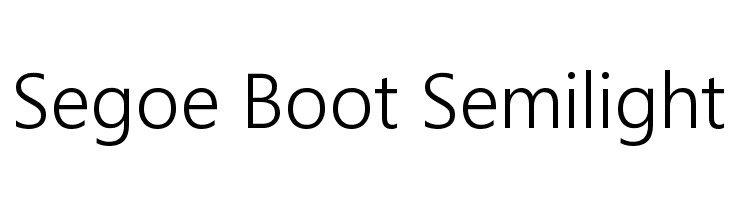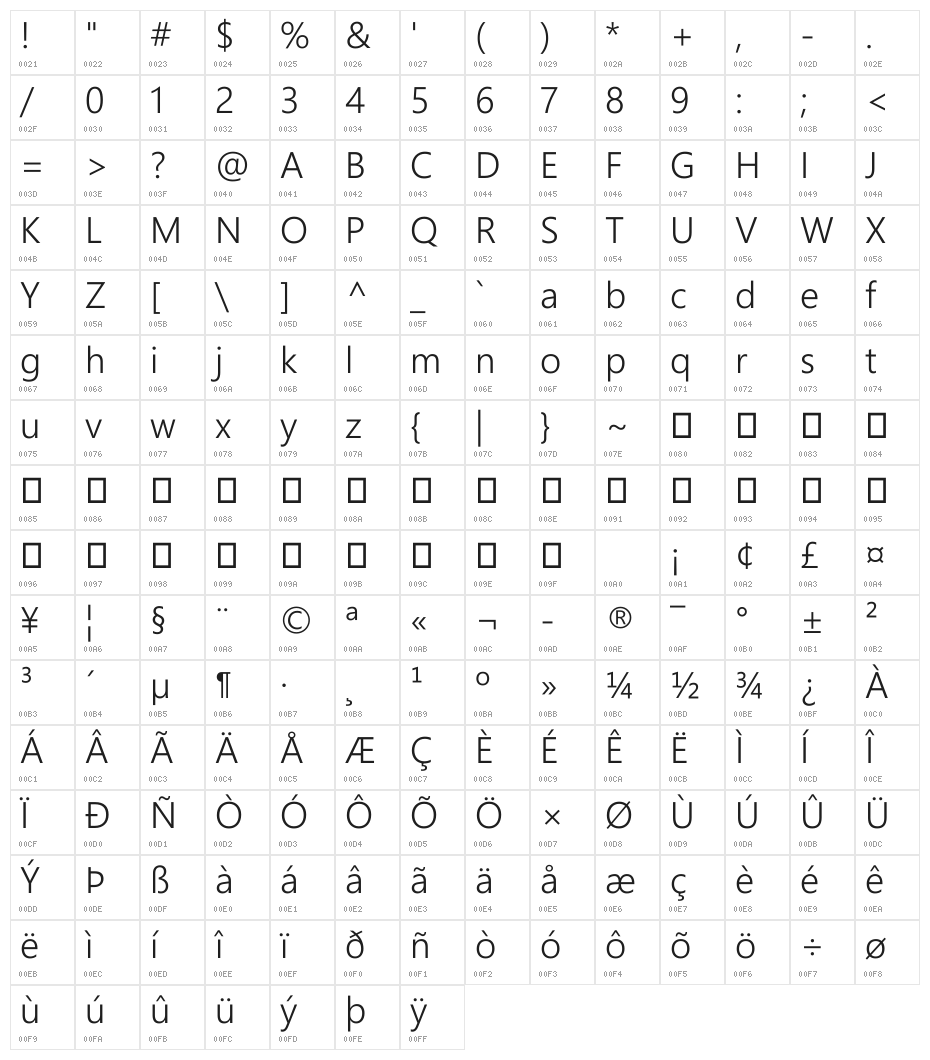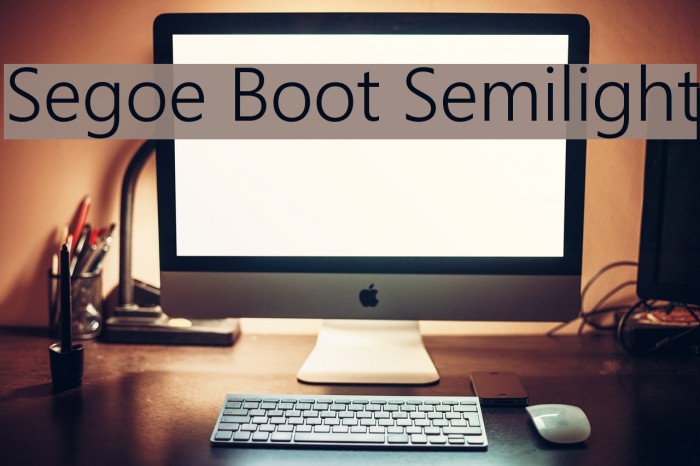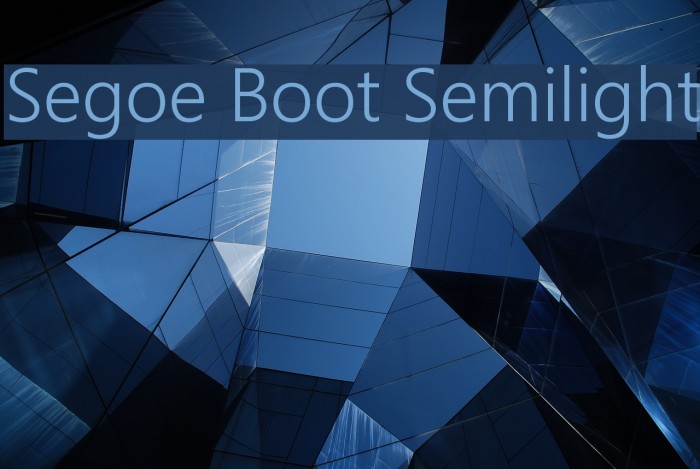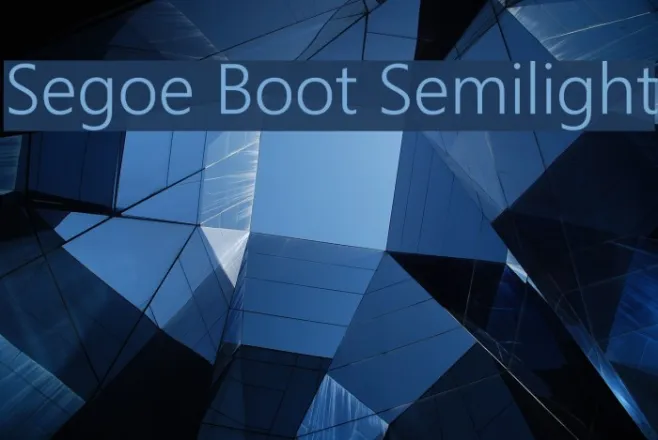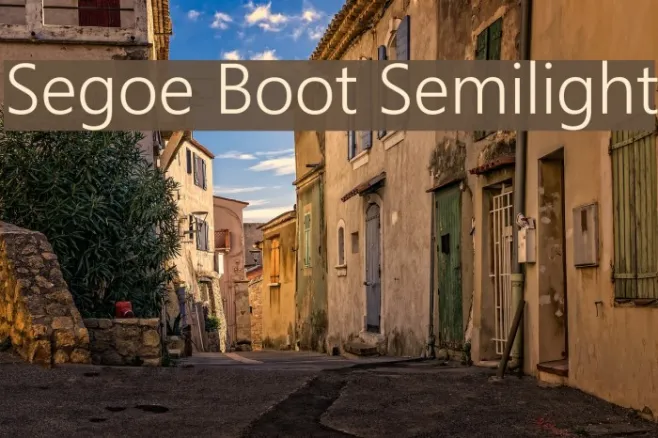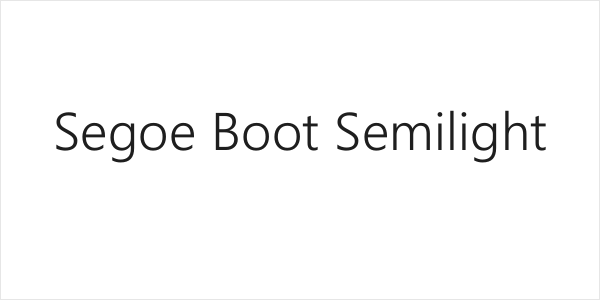
Segoe Boot Semilight Font
Segoe Boot Semilight Description
This font exhibits a clean and modern sans-serif style, characterized by its smooth curves and balanced proportions. The letterforms are open and legible, making it suitable for a wide range of applications. The uppercase letters are slightly taller than average, providing a sense of elegance and authority. The lowercase letters maintain a consistent x-height, contributing to its readability. The numerals are clear and distinct, ensuring they stand out in any context. Special characters are well-designed, maintaining the overall aesthetic of the font.